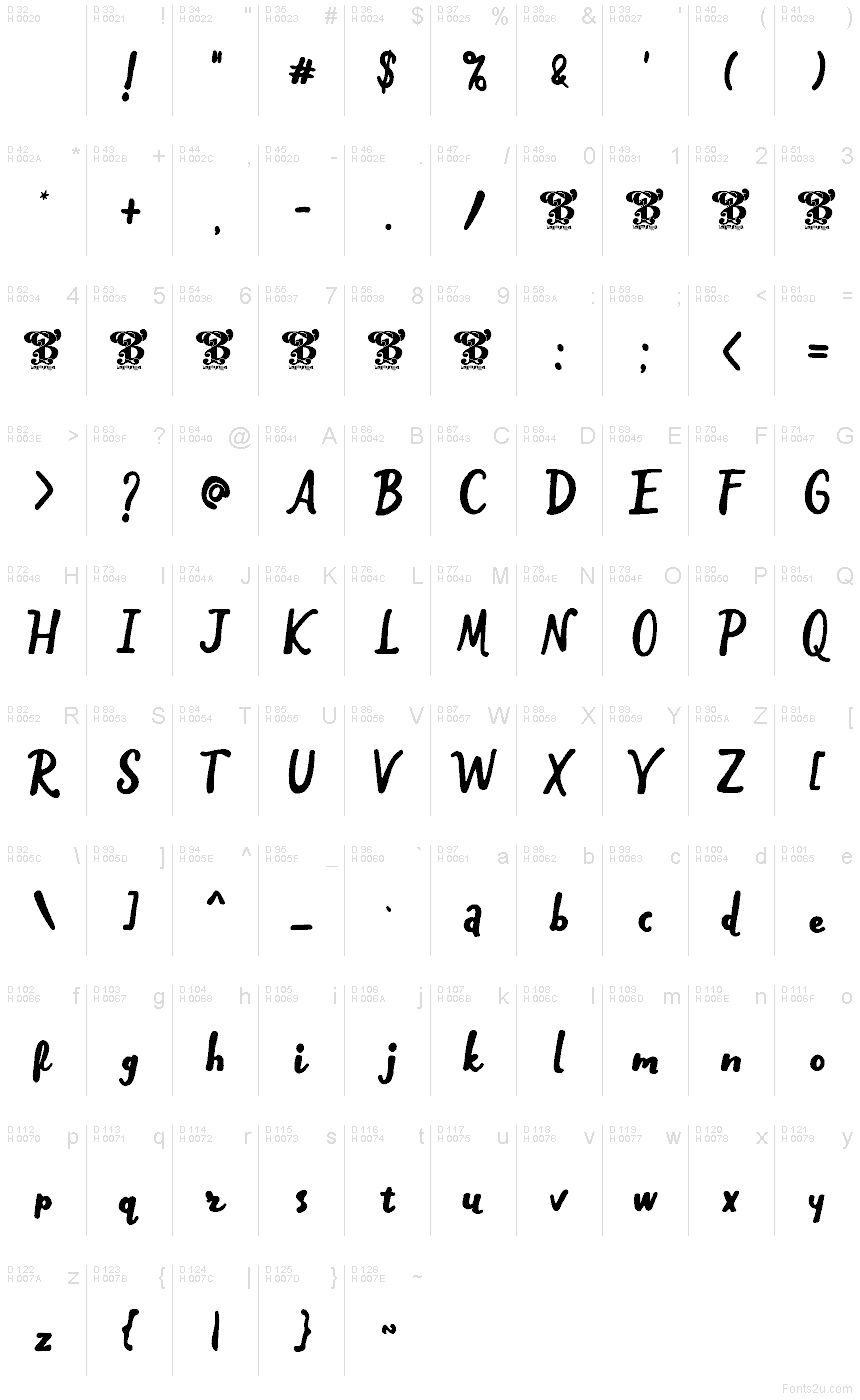
Hopefine Free Regular
Hopefine font by Dian Haniff of Bearytype is a casual, smooth typeface with a modern script style and an approachable appeal. The handwritten strokes are naturally balanced, fluent, but also controlled. Letters have generous spacing while keeping legibility high in both large and small sizes. Combining all these beautiful features together guarantees outstanding visuals and premium branding outcomes.
This handwritten free font’s smoothness can be integrated into personal stationery items (invitations/greeting cards) or larger projects such as posters, book covers, newsletter headers, product packaging labels, travel branding design projects including menus/brochures/flyers. It also works great on digital use for websites/social media images/quotes amongst others.